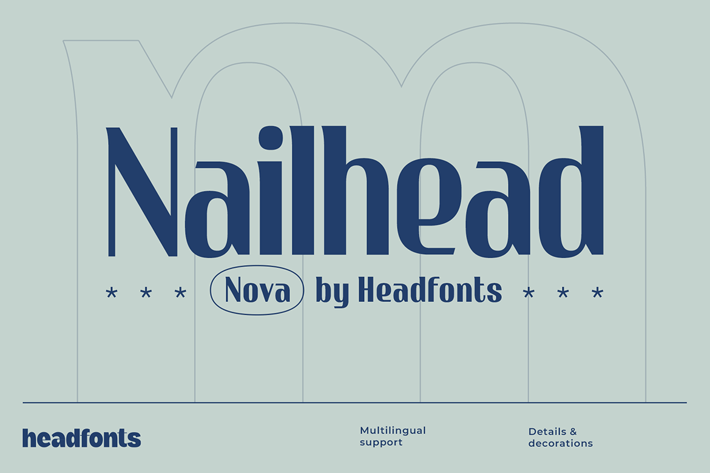
Nailhead Nova Modern Font
Happy to introduce to you the new upgrade of Nailhead, named NAILHEAD NOVA. This elegant font was improved with another two weights, so three in total, and soon will have extensive Latin script support. Design-wise, it is still modern, neat, and versatile with a more accentuated contrast between horizontal and vertical lines. Nailhead Nova has delicate details, yet maintaining a simple, not too heavy appearance perfect for a wide range of design projects. From poster design, banners to logo design, Nailhead Nova will definitely come in handy when designing high-quality materials for both digital and print.
- Extensive Latin script language support (soon)
- Upper and lowercase font